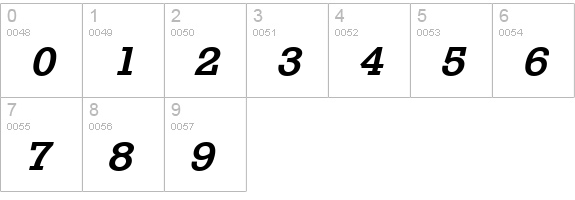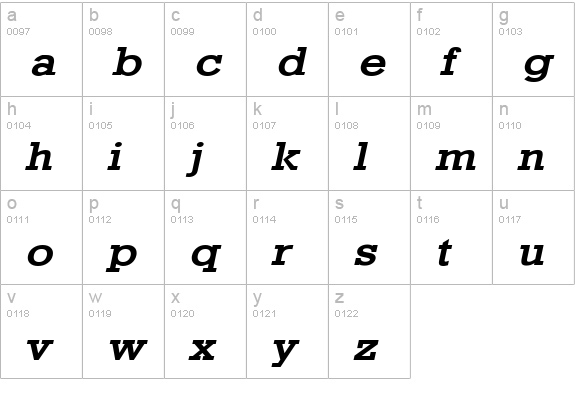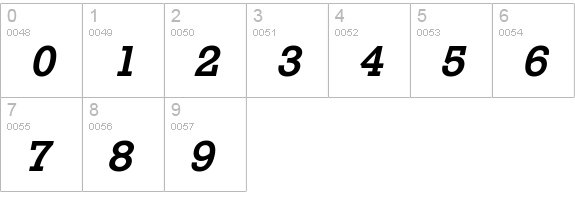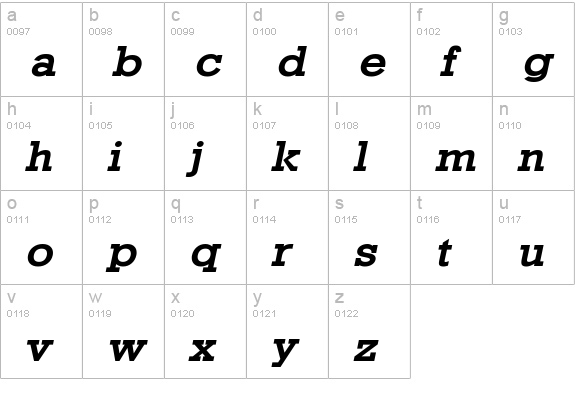
Geo 986 Wide Bold Italic is a strong, high-contrast, extended-width, italic variant in the Geo typeface family \xE2\x80\x94 well suited to headlines, attention-grabbing titles, and strong calls-to-action.
Introducing Geo 986 Wide Bold Italic font, a bold and dynamic typeface that exudes modernity and sophistication. With its wide and italic design, this font brings a unique flair to any design project, making it stand out from the crowd. The clean lines and distinctive curves of Geo 986 Wide Bold Italic font make it perfect for a variety of applications, from branding to editorial design. What's more, Geo 986 Wide Bold Italic font is available for free download at FontsMarket.com. This means you can easily access this stylish and versatile font to elevate your designs without any cost. Don't miss out on the opportunity to enhance your projects with Geo 986 Wide Bold Italic font's sleek and contemporary aesthetic. Download it today and unleash your creativity with this stunning typeface.